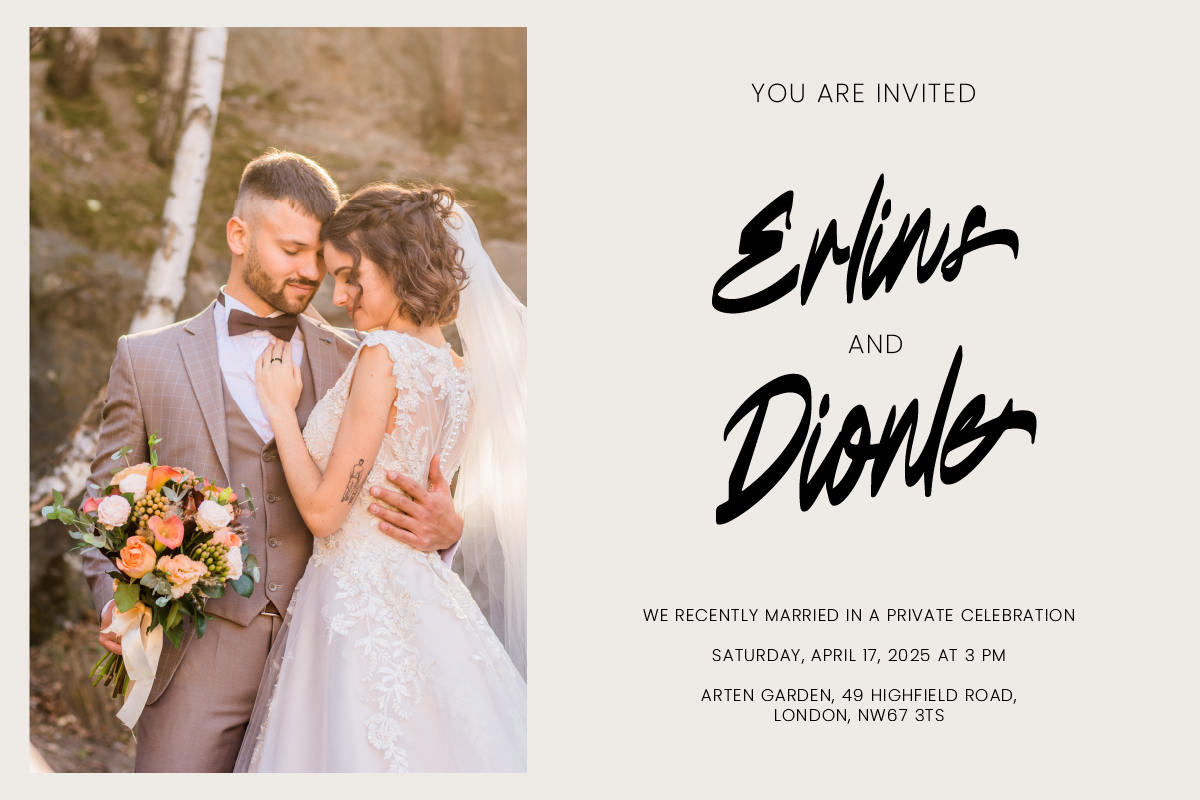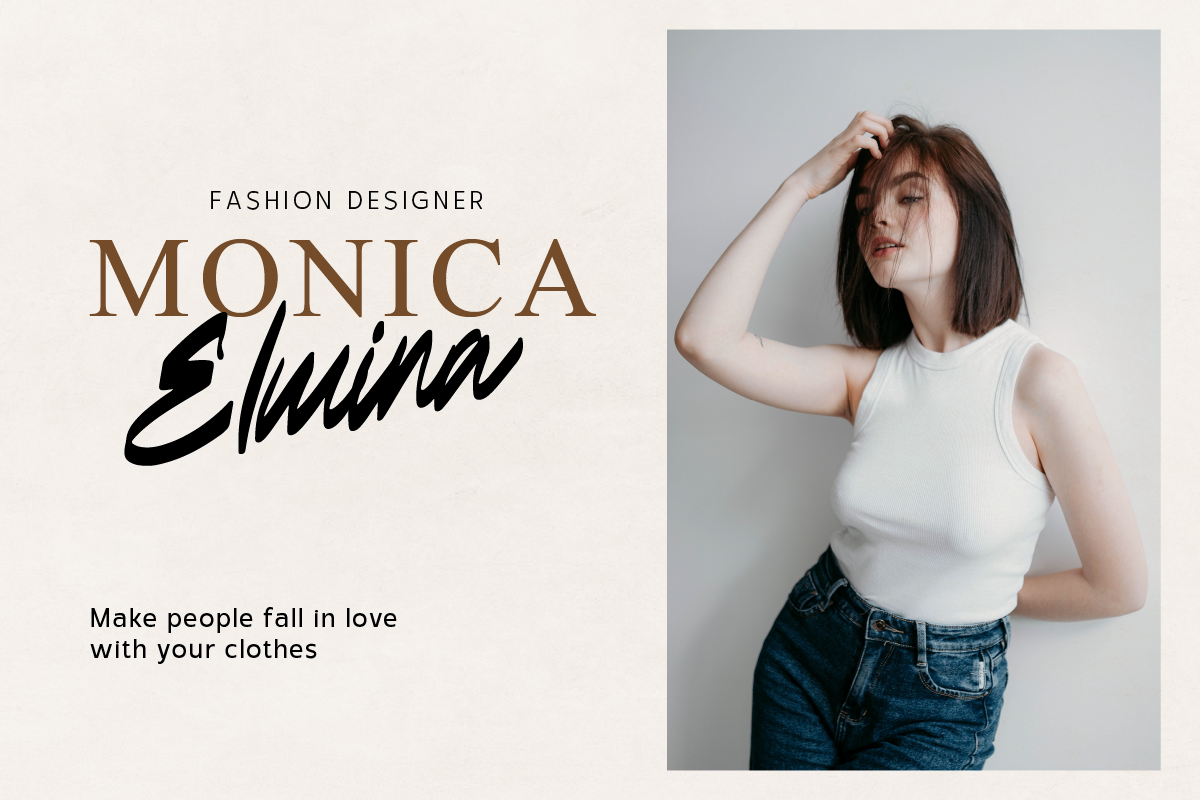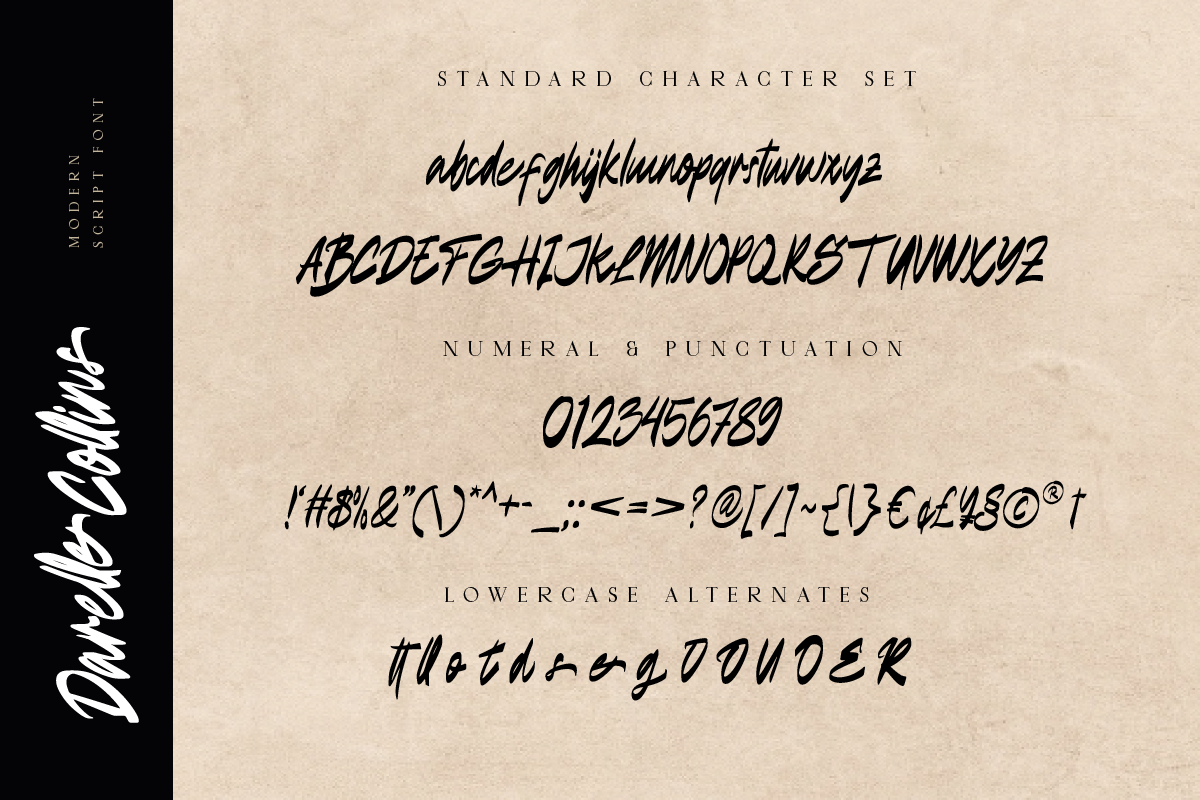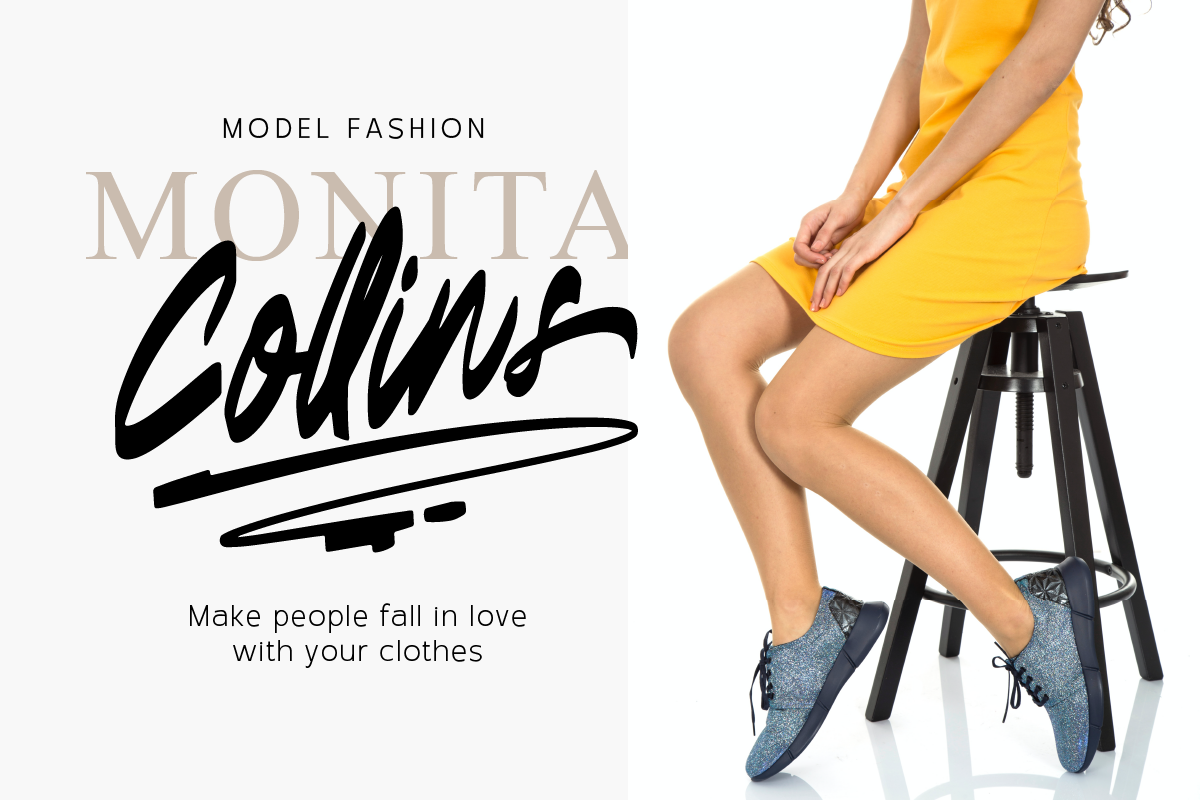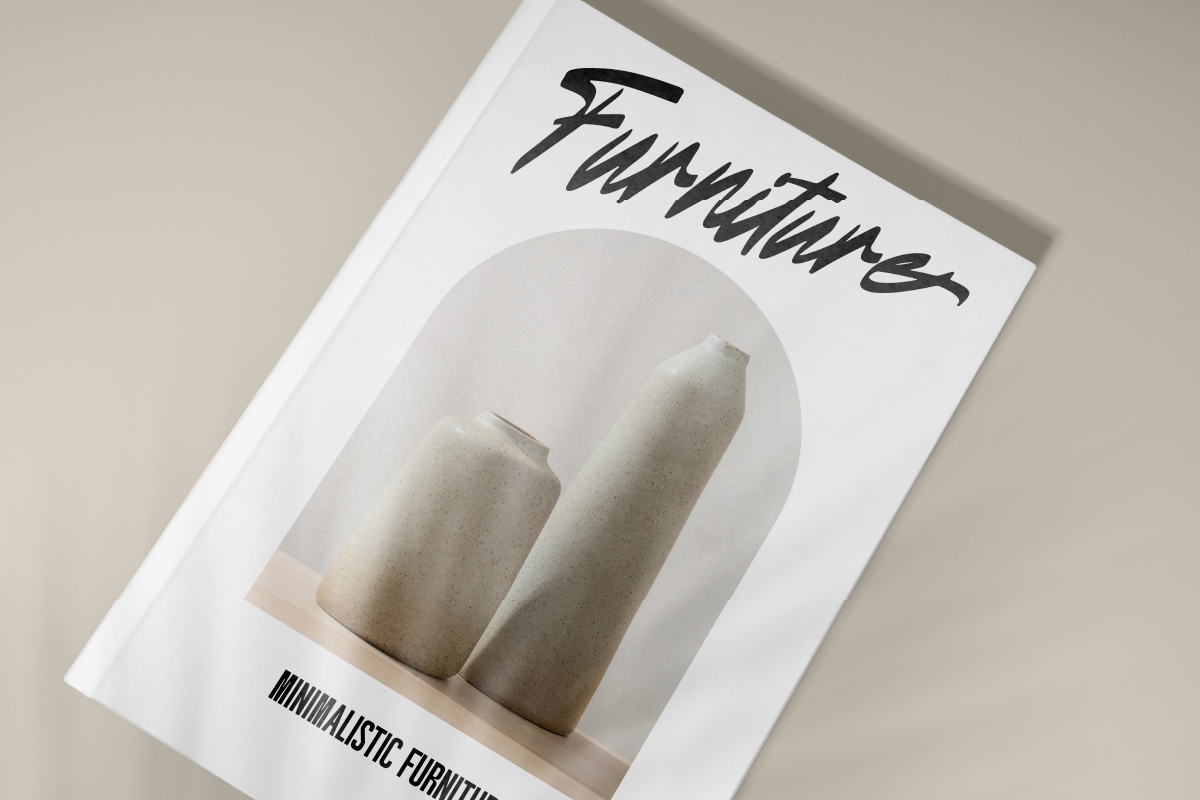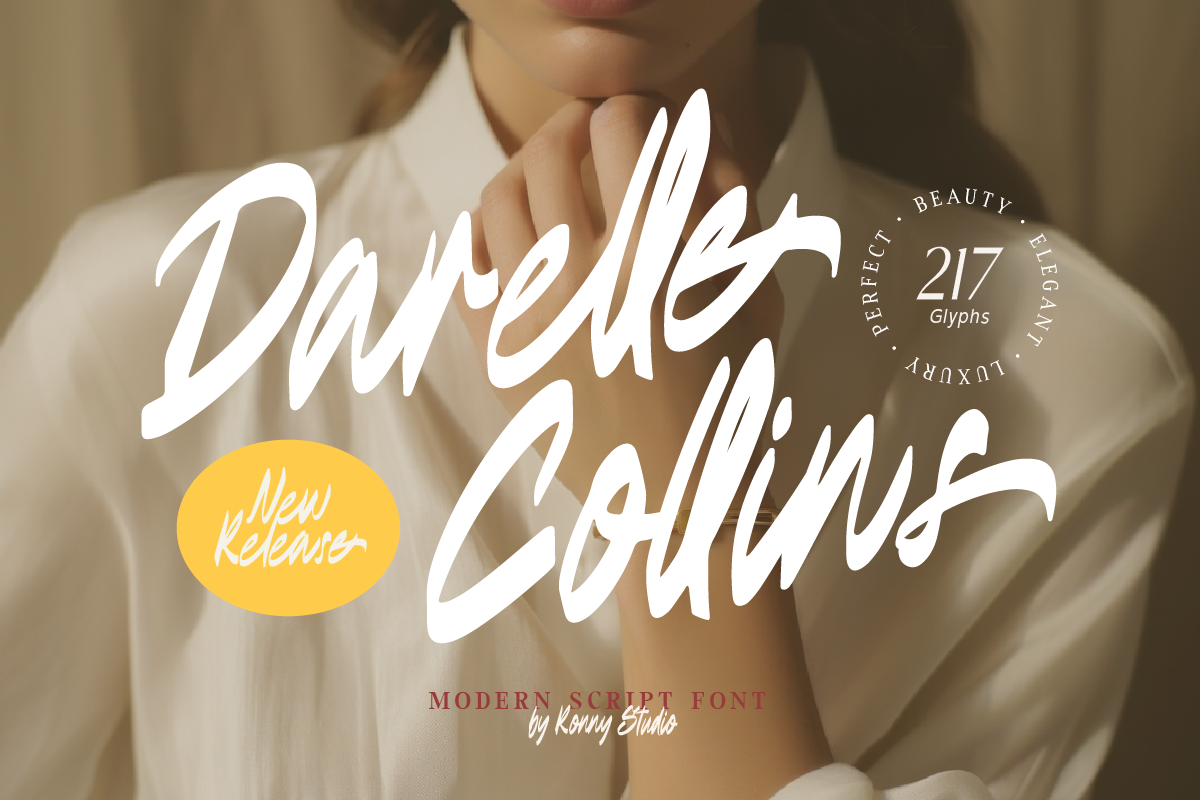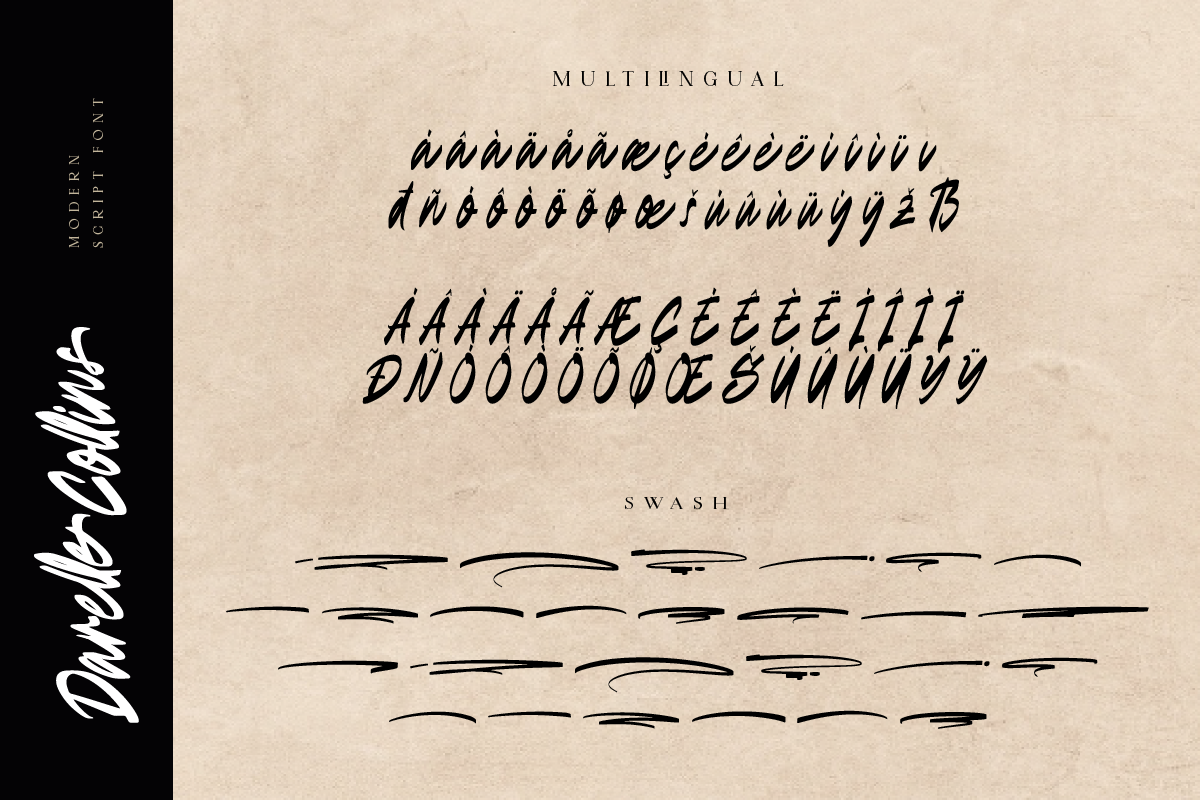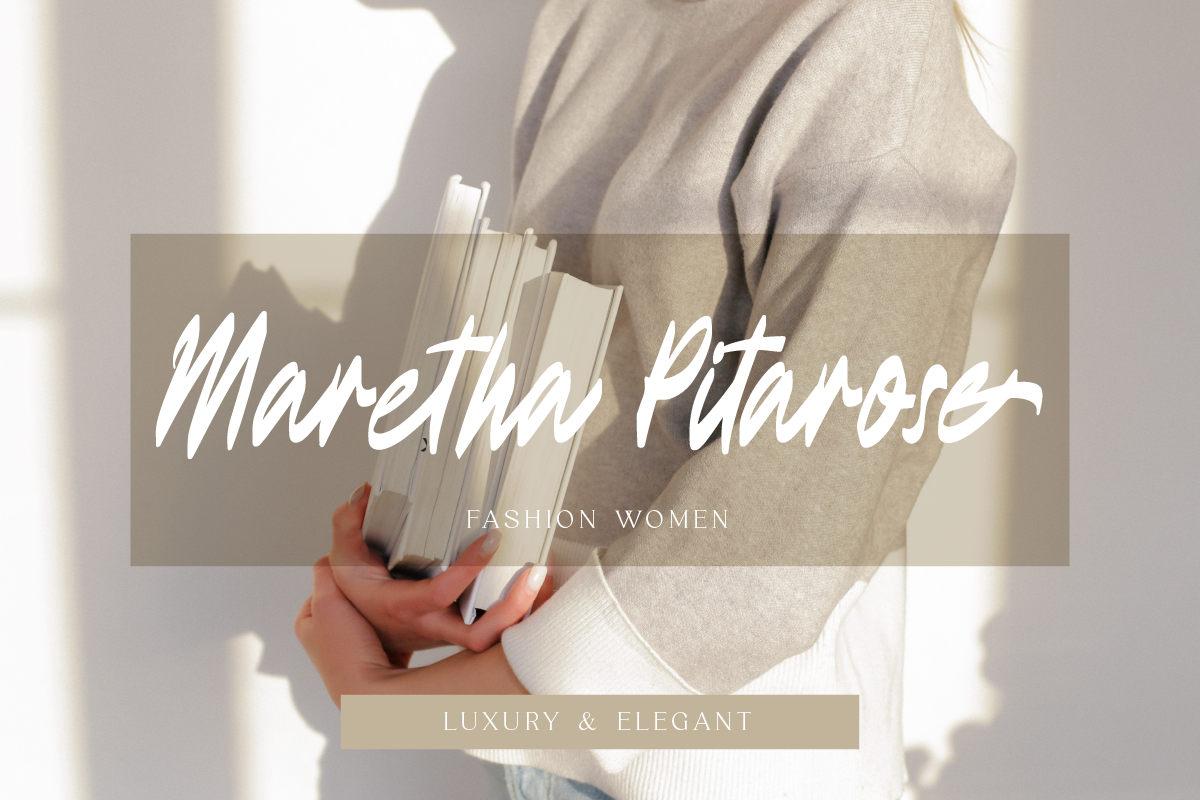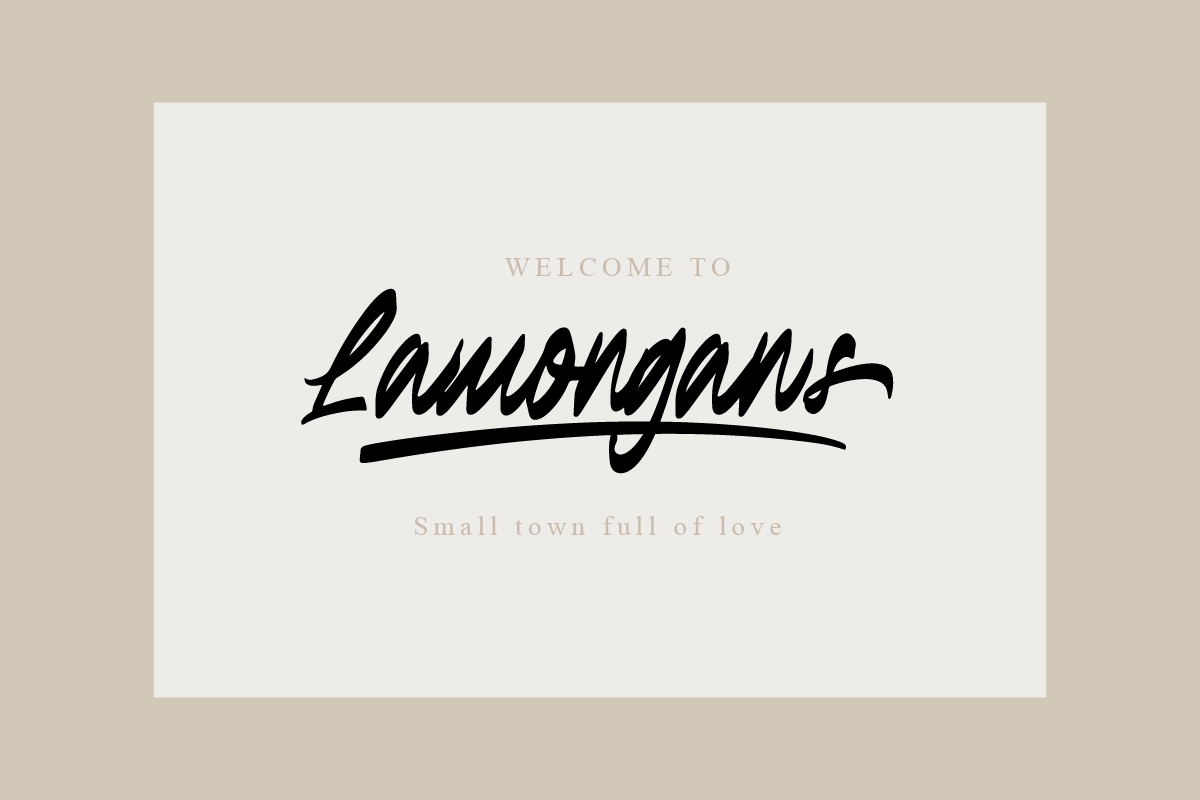
Darelle Collins Modern Script Font
Darelle Collins Font is created with a natural modern script with a fresh modern script providing a stylish script guaranteed to add eye-catching appeal to your logo designs, brand imagery, quotes, product packaging, merchandise & social media posts
- numbers & punctuation
- Alternate & Ligature
- Swash Ornament